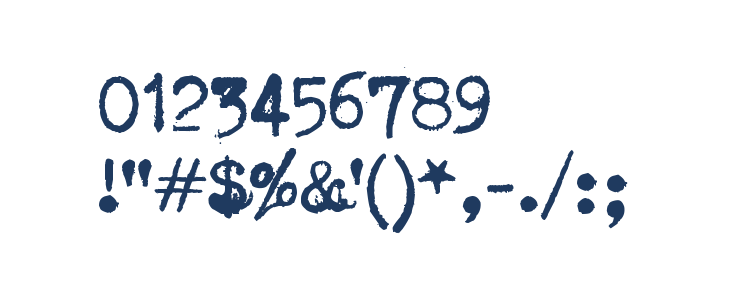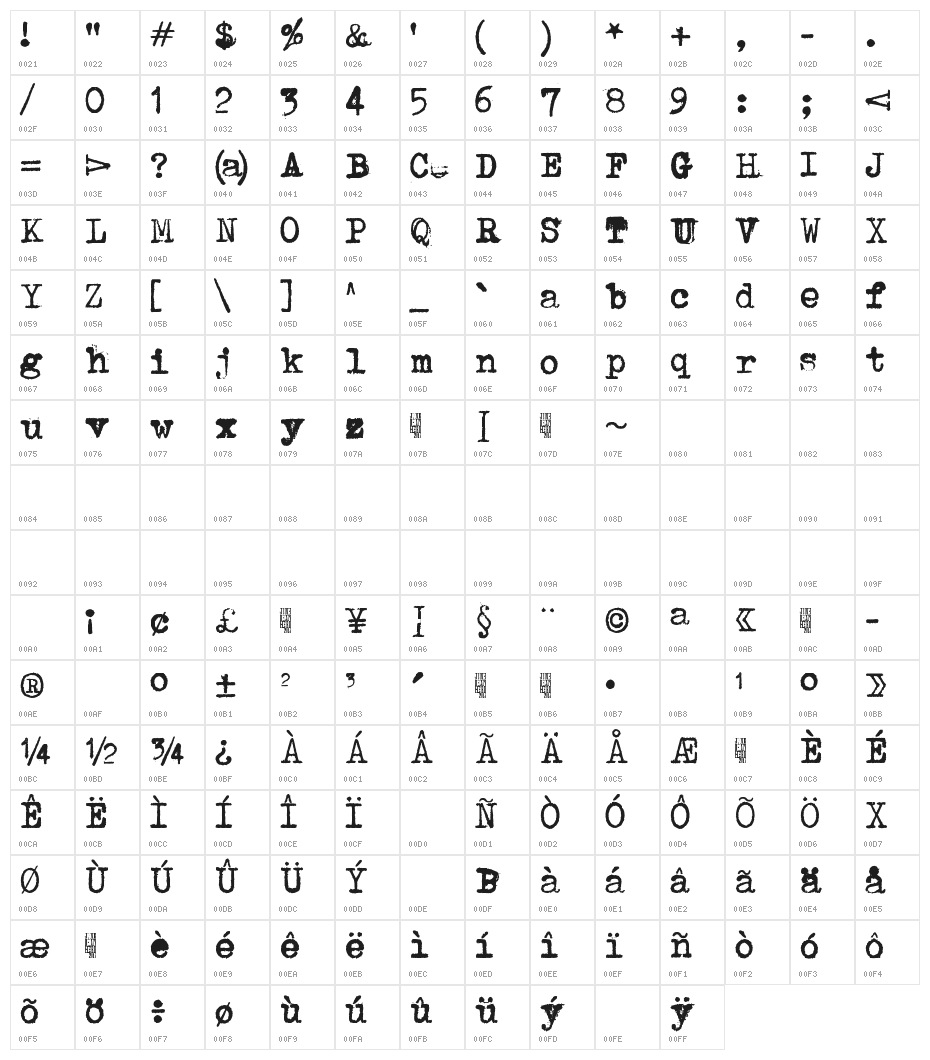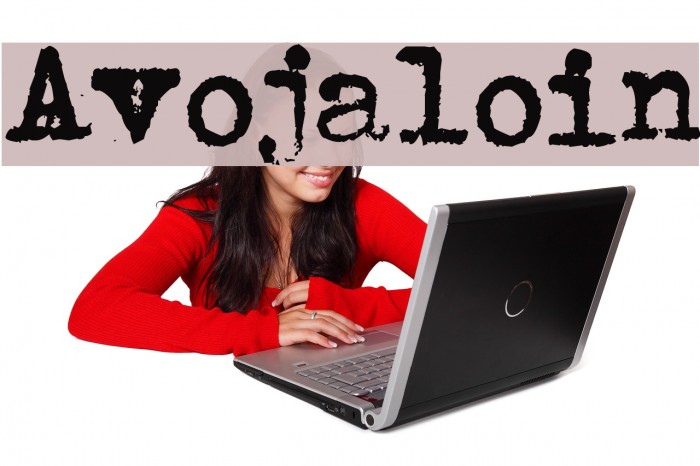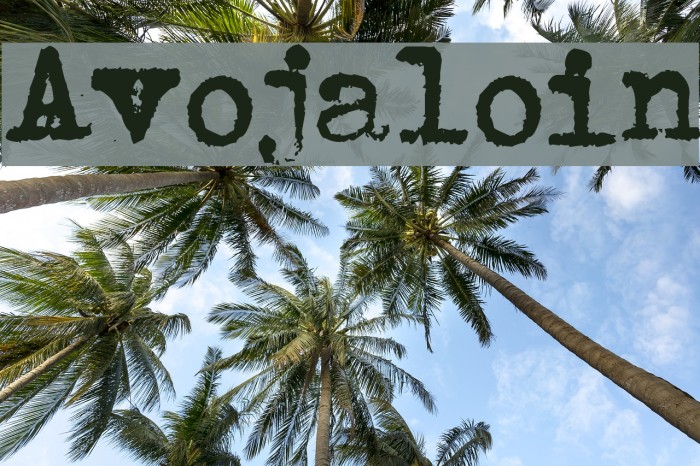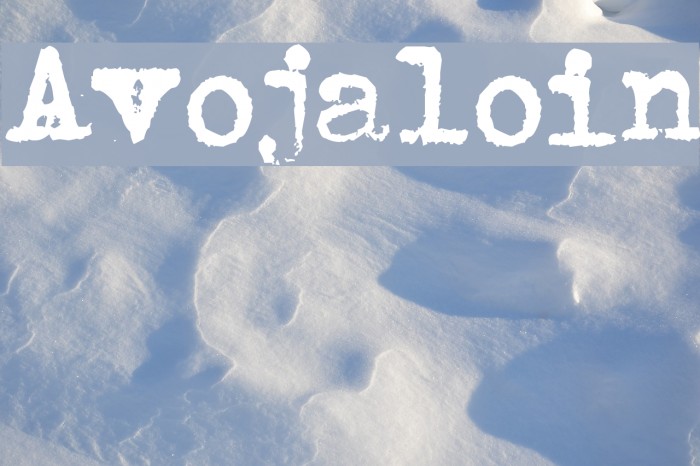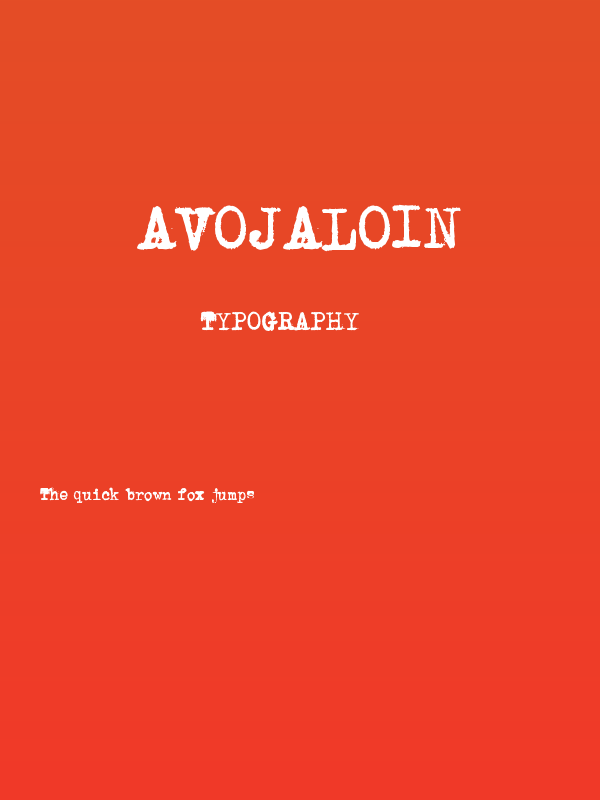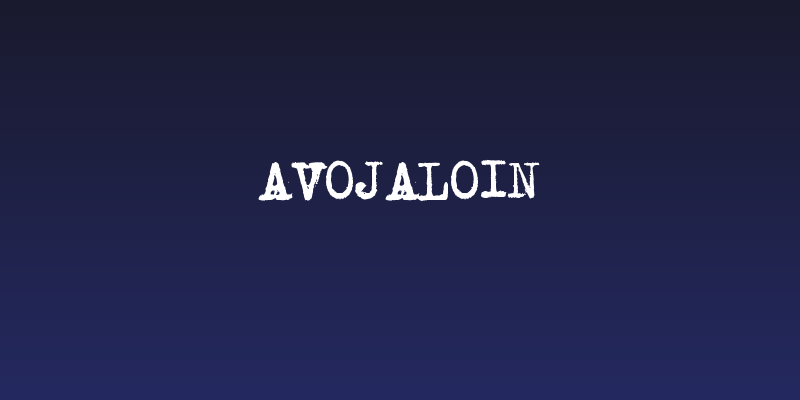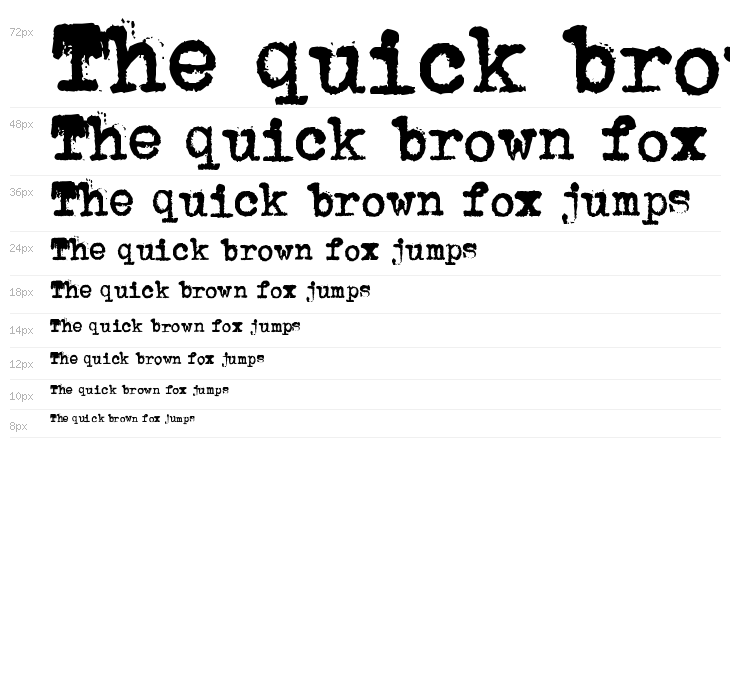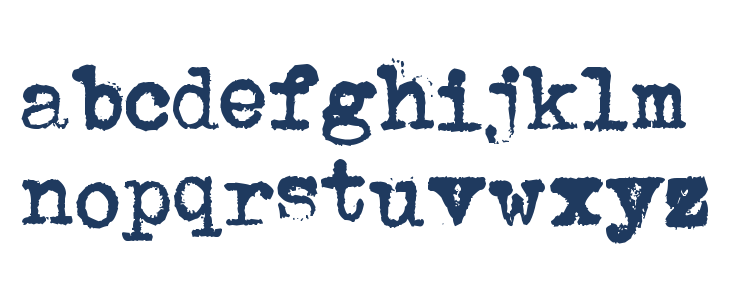
Avojaloin Font
Avojaloin Description
This font features a distressed, grunge style that mimics the appearance of typewriter text with ink blotches and irregularities. The uppercase and lowercase letters are bold and have a rough texture, giving them a vintage, worn-out look. The numbers and special characters follow the same aesthetic, providing a cohesive appearance across all glyphs. The font's uneven edges and varying stroke thicknesses contribute to its unique character, making it stand out in any design. Its boldness and texture make it ideal for projects that require a strong, impactful visual element.
| Use Case | Headlines, Logos, Artistic projects |
| Proposed Projects | Ideal for vintage-themed posters, album covers, and artistic projects that require a bold, textured look. |